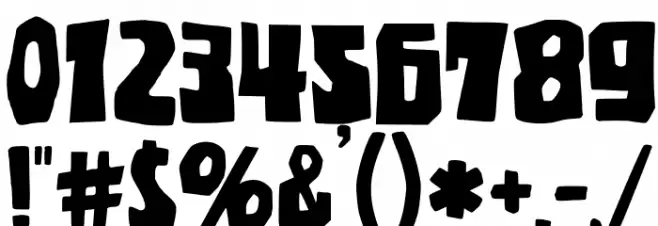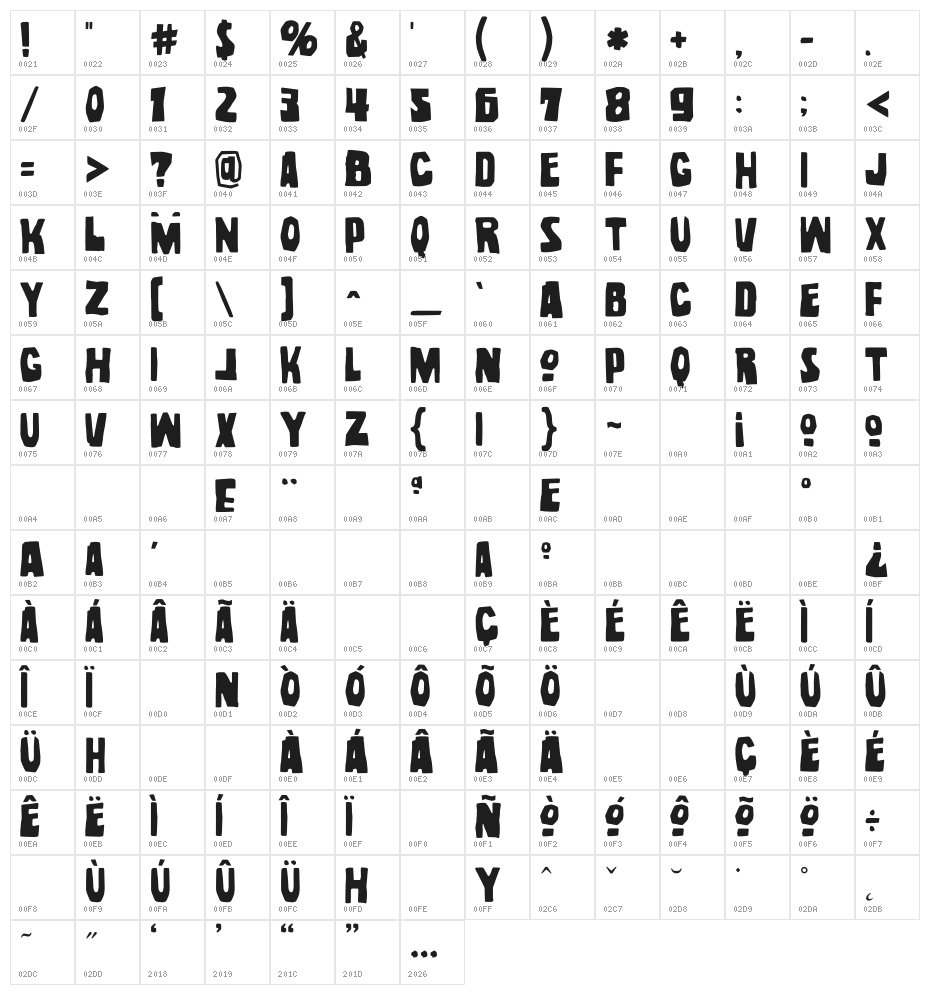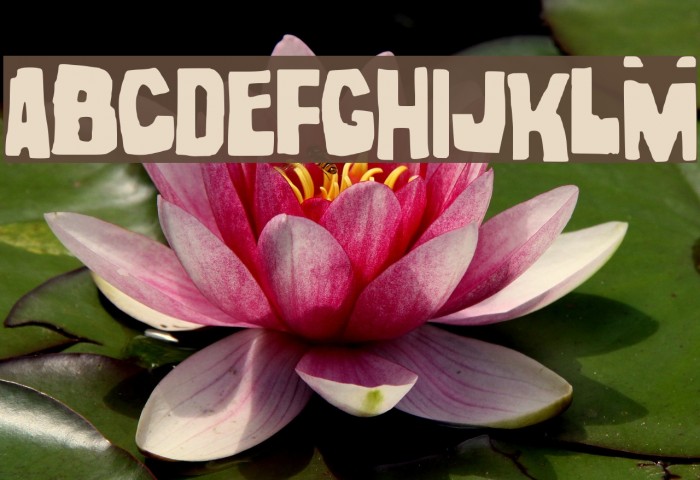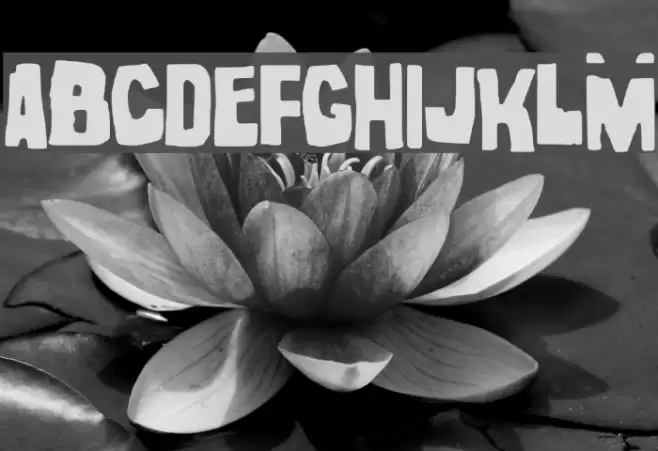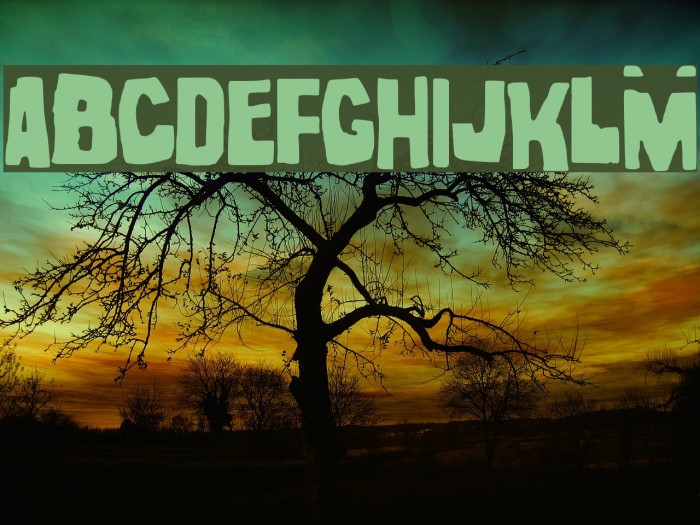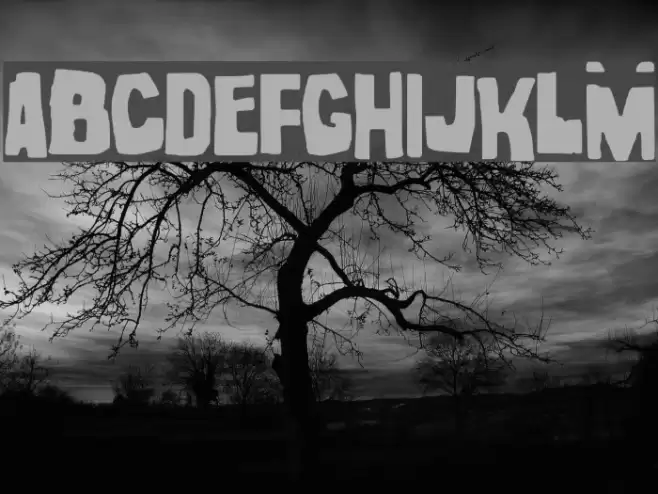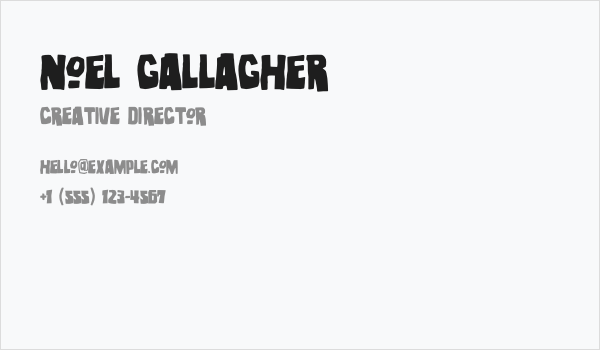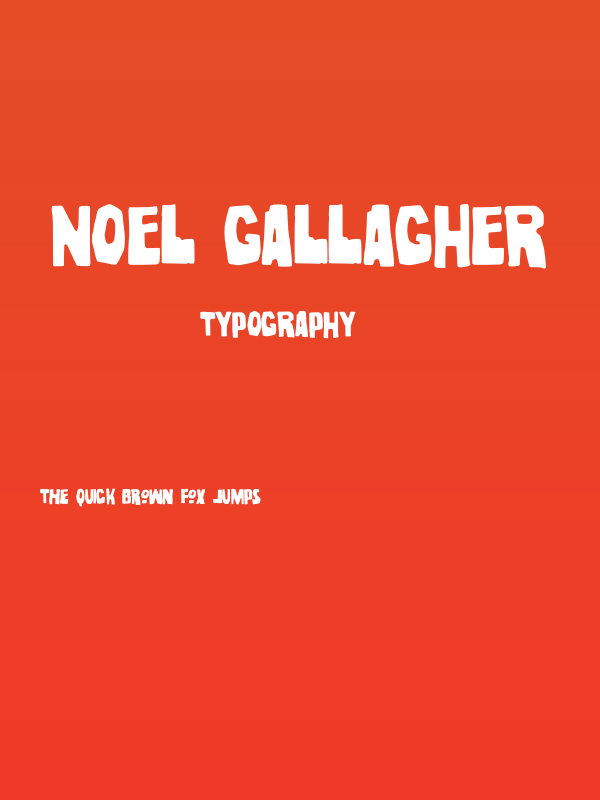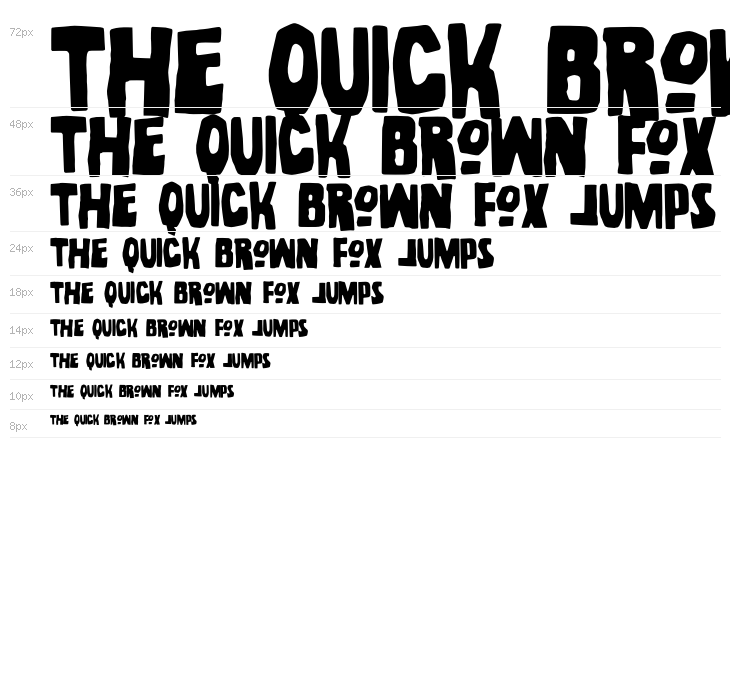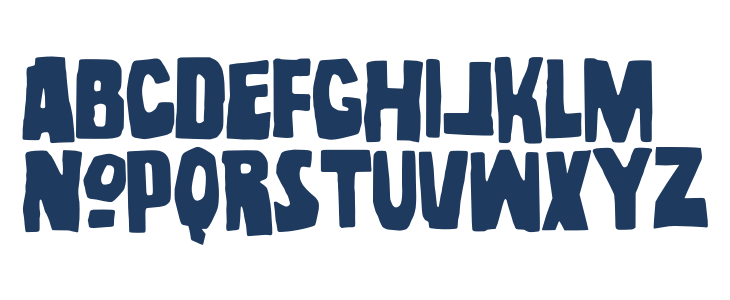
noel gallagher Font
noel gallagher Description
This font features a bold and chunky style with a hand-drawn appearance. The characters are irregular and have a playful, almost cartoonish quality. The uppercase and lowercase letters maintain a consistent thickness, creating a strong visual impact. The numbers and special characters follow the same bold and quirky design, making them stand out. The overall look is informal and dynamic, suitable for projects that require a fun and energetic vibe. The font's unique style makes it ideal for creative and artistic applications.
| Overall Style | Playful, Artistic |
| Proposed Projects | Ideal for posters, album covers, children's books, and creative branding. |